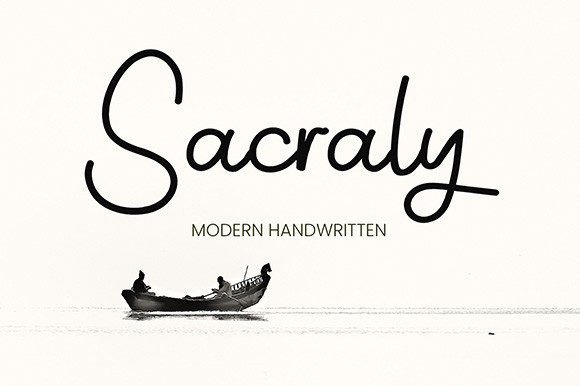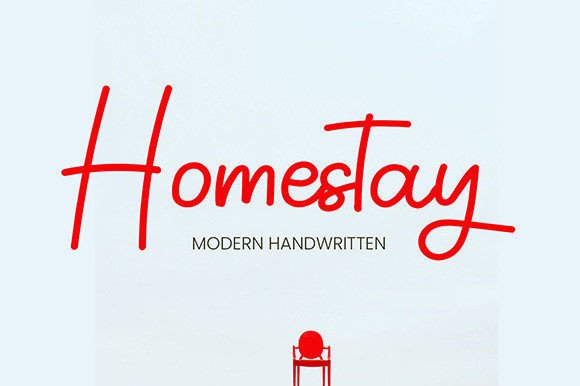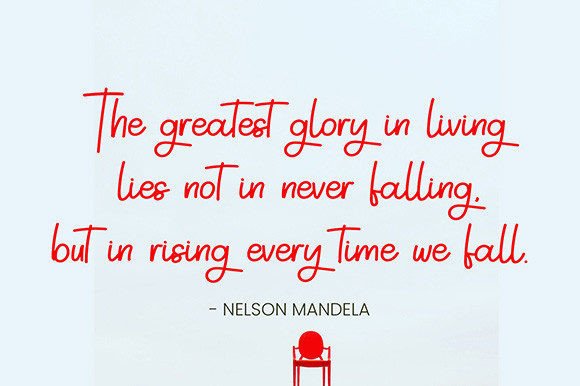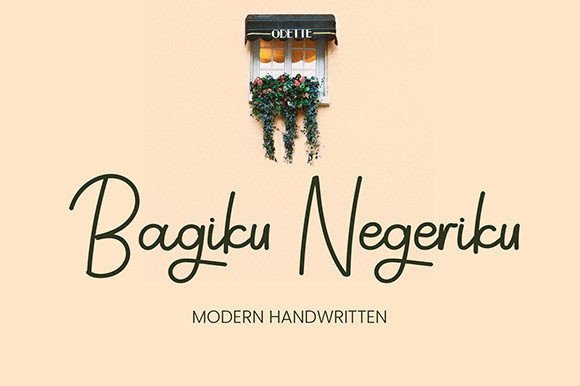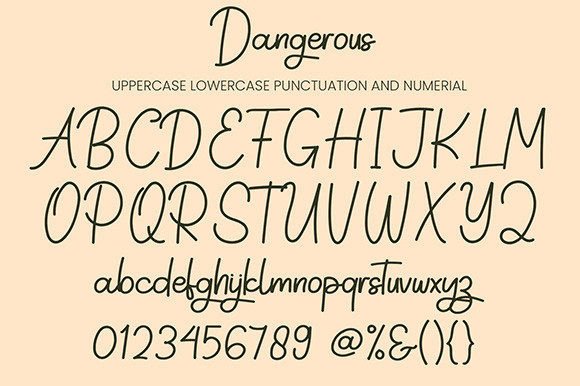
Dangerous Font: The Newest Addition to Your Typography Arsenal
Are you tired of using the same old fonts for your design projects? Look no further! Introducing Dangerous, a stunning new script font that’s about to take your typography game to the next level. In this article, we’ll dive into the world of Dangerous Font, exploring its features, uses, and benefits for designers and crafters alike.
What is Dangerous Font?
Dangerous is a beautiful script font, carefully crafted to add a touch of elegance and sophistication to your designs. With its flowing lines and intricate details, this font is perfect for creating visually appealing projects that demand attention. Whether you’re working on a logo, blog header, poster, or invitation, Dangerous Font is the perfect choice.
Key Features of Dangerous Font
- Unique and elegant design: Dangerous Font boasts a distinctive and stylish design that’s sure to make your projects stand out.
- Highly versatile: This font is suitable for a wide range of projects, including quotes, logos, blog headers, posters, ribbons, fashion, clothing, letters, invitations, stationery, and more.
- Easy to read and understand: Despite its ornate design, Dangerous Font is surprisingly legible, making it perfect for body text and headlines.
Uses of Dangerous Font
Dangerous Font is an incredibly versatile font that can be used in a variety of design projects. Here are some ideas to get you started:
- Logos and branding: Create a lasting impression with a custom logo that showcases your brand’s personality.
- Blog headers and titles: Add a touch of sophistication to your blog with a custom header that incorporates Dangerous Font.
- Posters and flyers: Create eye-catching posters and flyers that grab attention and leave a lasting impression.
- Fashion and clothing: Use Dangerous Font to create stylish labels, tags, and packaging for your fashion brand.
- Invitations and stationery: Add a touch of elegance to your invitations, letters, and stationery with this beautiful script font.
Benefits of Using Dangerous Font
So, why choose Dangerous Font for your design projects? Here are just a few benefits:
- Stand out from the crowd: With its unique and elegant design, Dangerous Font is sure to make your projects stand out from the competition.
- Save time and effort: This font is easy to read and understand, saving you time and effort when working on complex designs.
- Enhance your brand’s personality: Use Dangerous Font to create a consistent visual identity that reflects your brand’s values and personality.
- Limitless creative possibilities: With its versatility and compatibility with various design software, Dangerous Font offers limitless creative possibilities for designers and crafters.
| Font Name | Dangerous Font |
| Author | chatype studio |
In conclusion, Dangerous Font is a game-changing addition to any designer’s typography arsenal. With its stunning design, versatility, and ease of use, this font is perfect for a wide range of projects. Whether you’re a seasoned designer or a crafty DIY enthusiast, Dangerous Font is sure to inspire your creativity and take your designs to new heights.